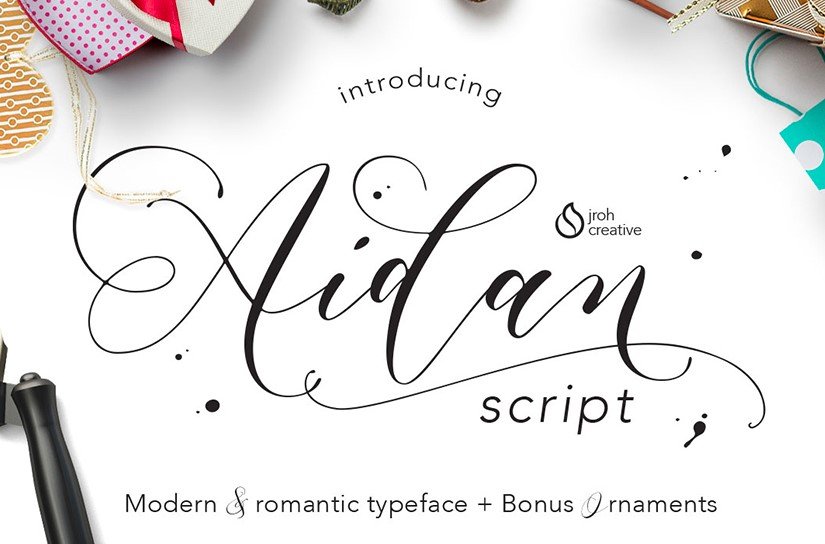
Aidan Romantic Script Font Free Download
Hello designer, we are sharing the most appropriate and smart signature typeface which is Aidan Script Font that is best for greeting cards, covers, banners, posters, logos, and calligraphic projects. You can easily design and developed large screen projects with this font that has amazing bold and regular styles.
The font was designed by JROH Creative company and provided this font free of cost which comes with beautiful designs and elegant texture.
You can get 478 glyphs with this font and also it comes with awesome opentype features that give you the independence of designing commercial and personal projects free.
Here we provide an image which includes the characters and letters of this beautiful, you can perceives it by viewing on the image and get an idea how delightful it is.
The font was designed by developed for High Resolution or HD images. You can creates large project with this typeface.
This unque and elegant font that is best for pairing with the combination of clarendon font which has a popular texture so that can also be used in pairing also.